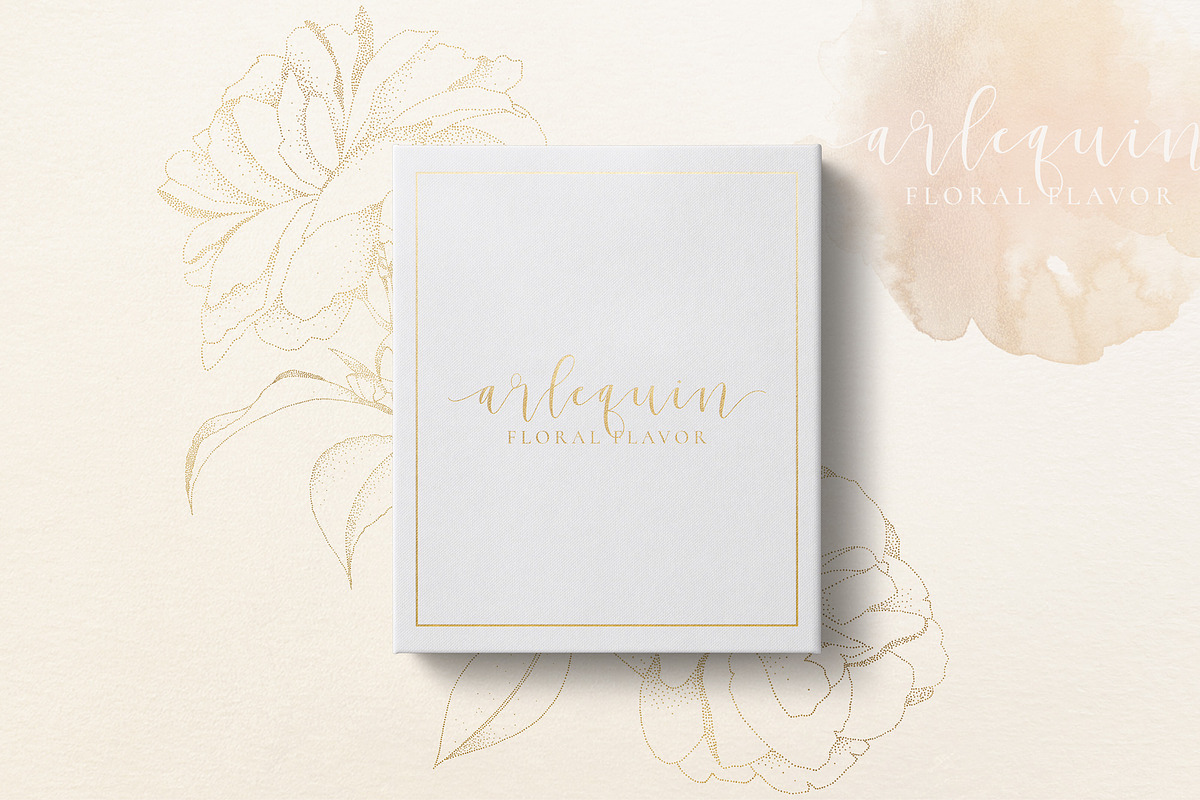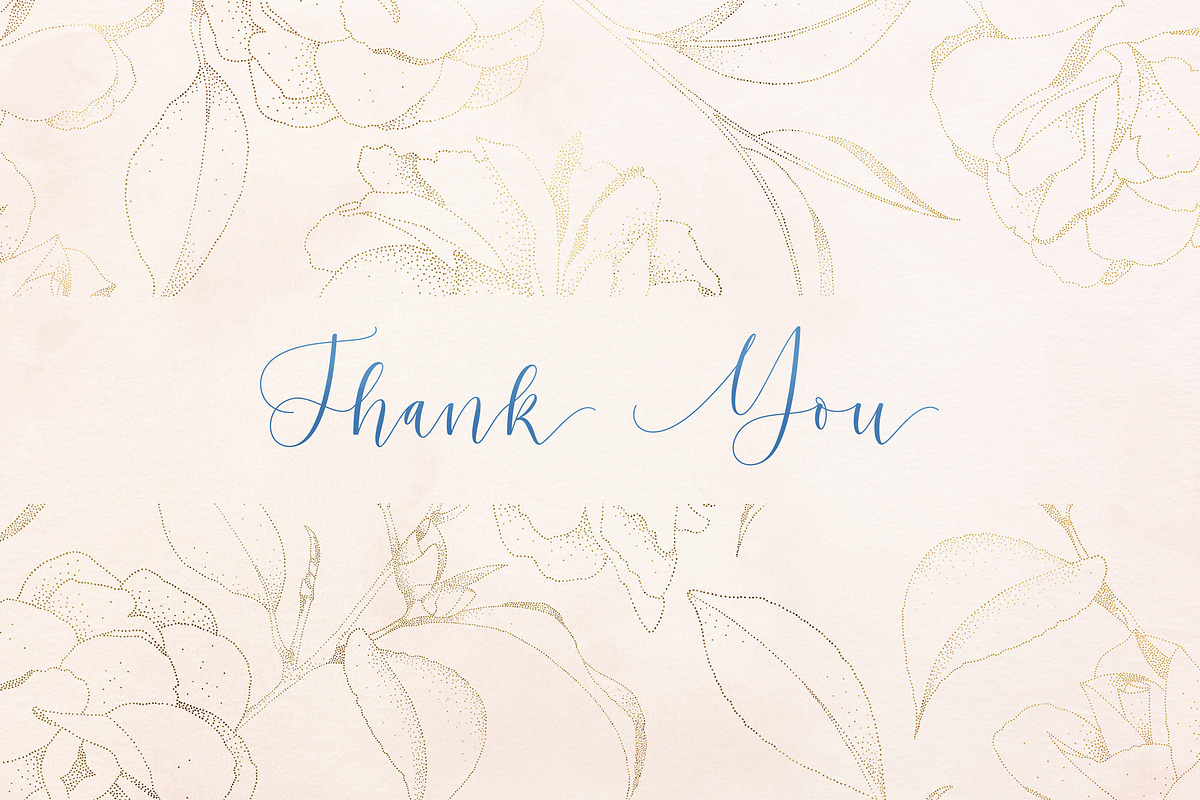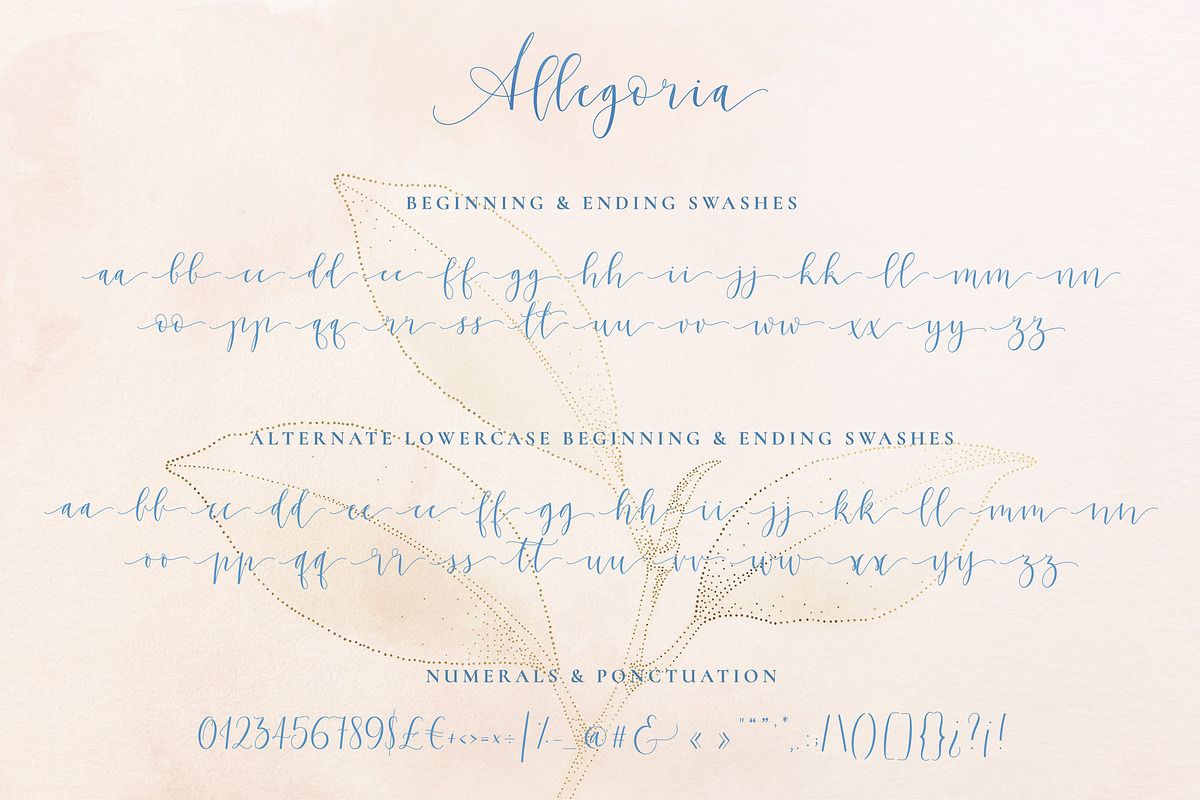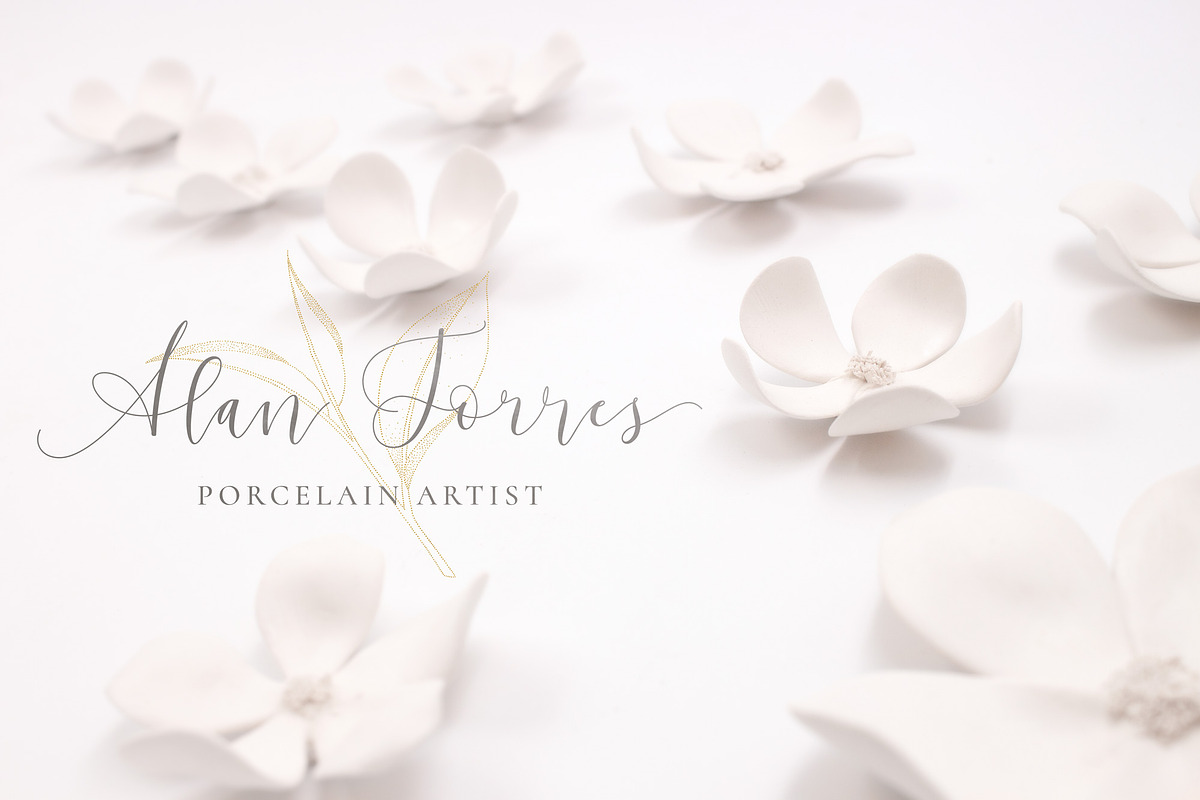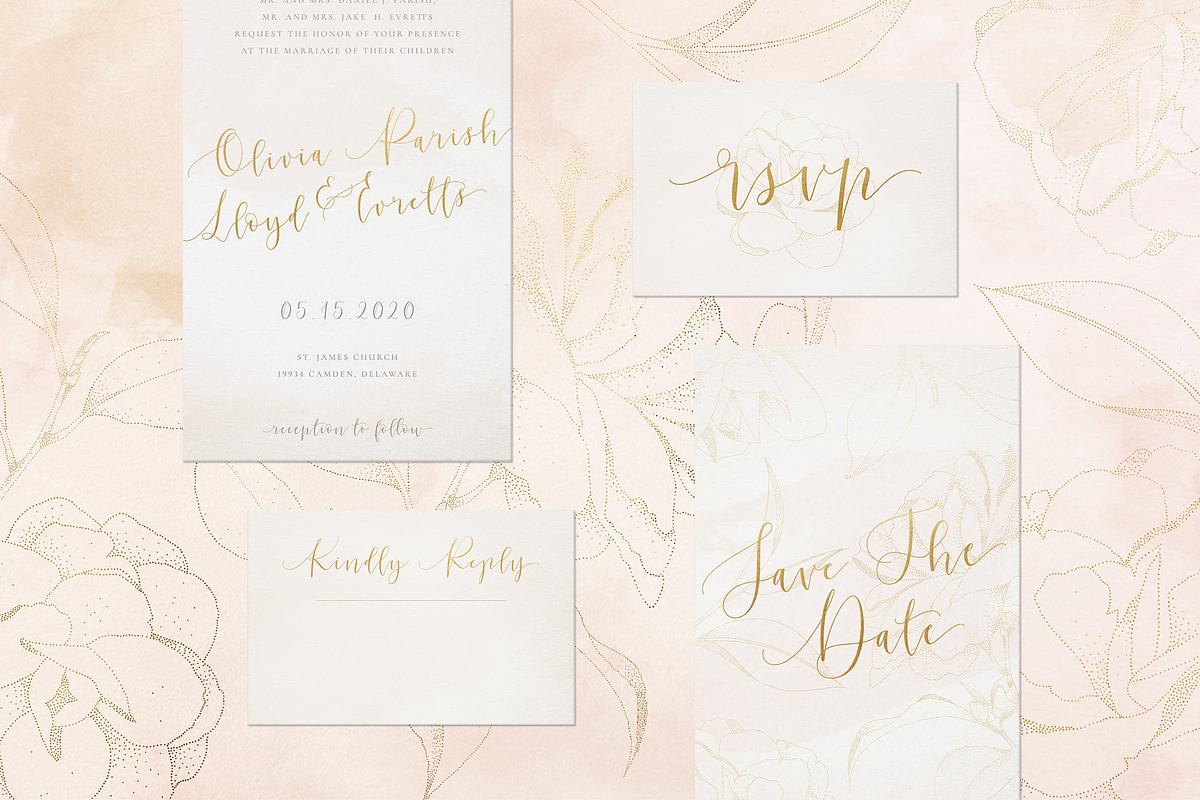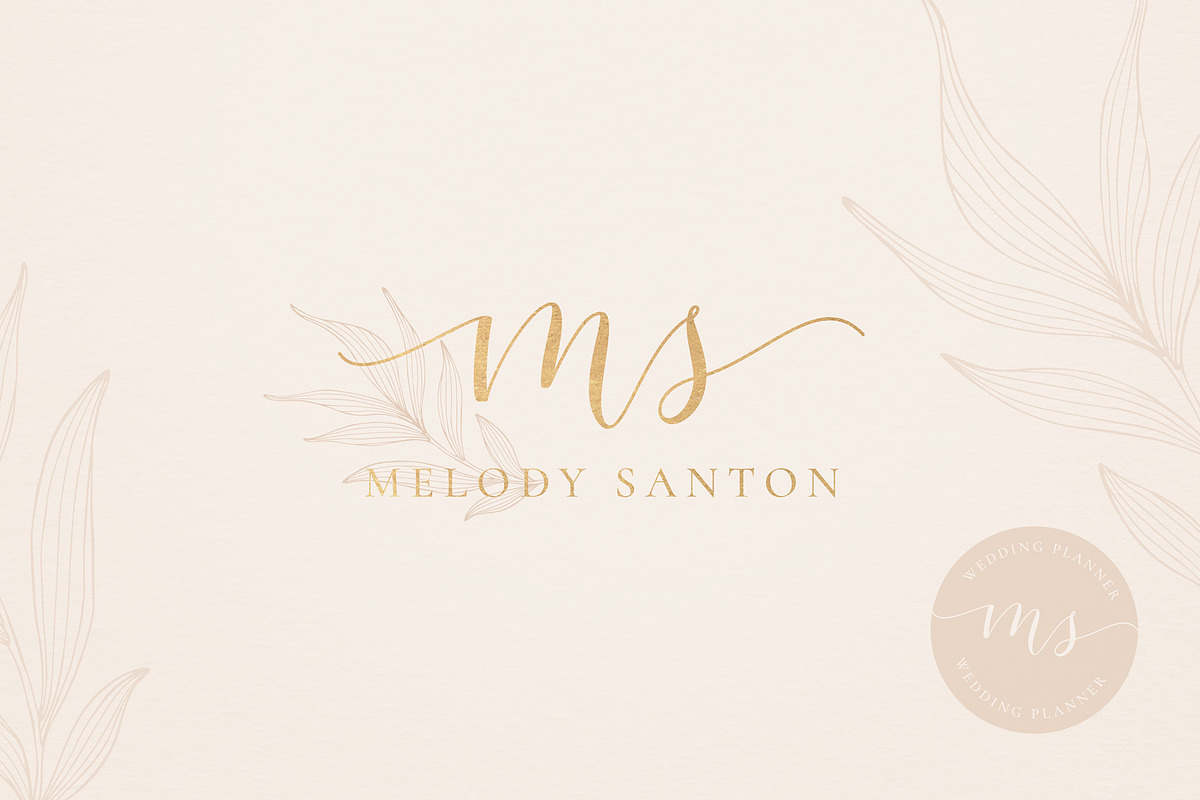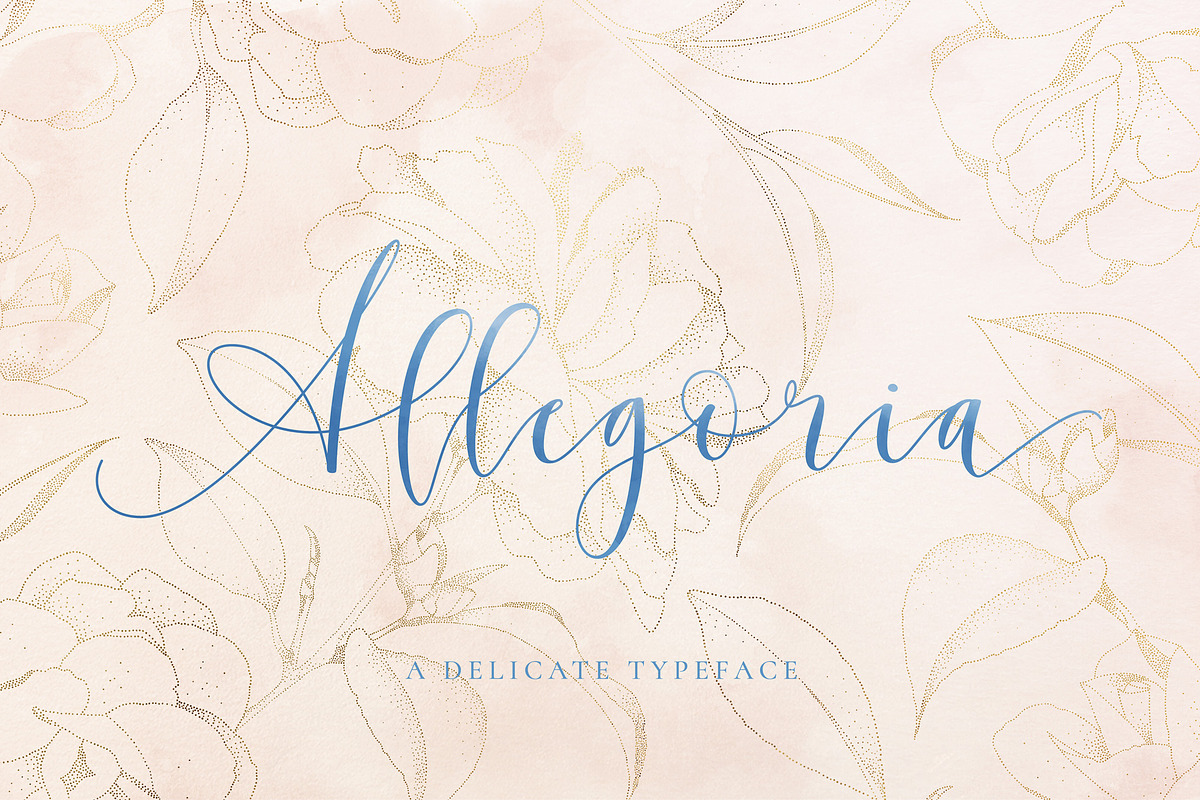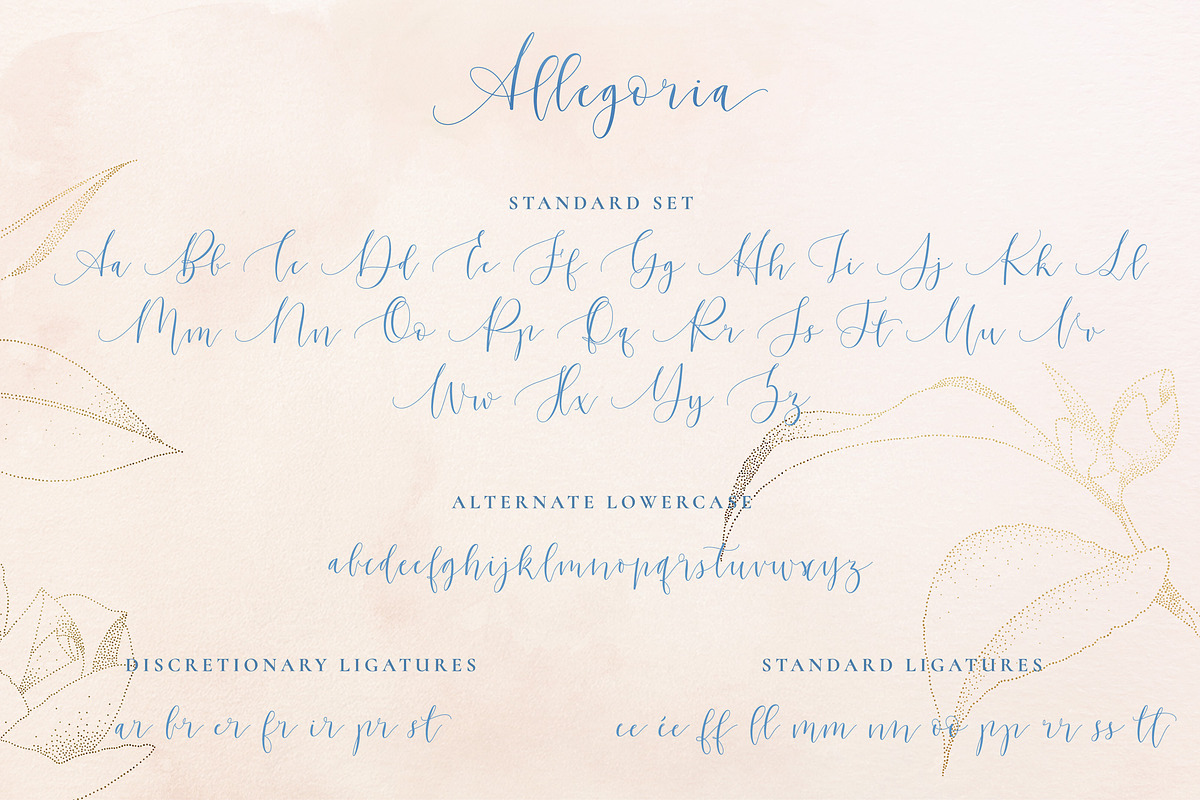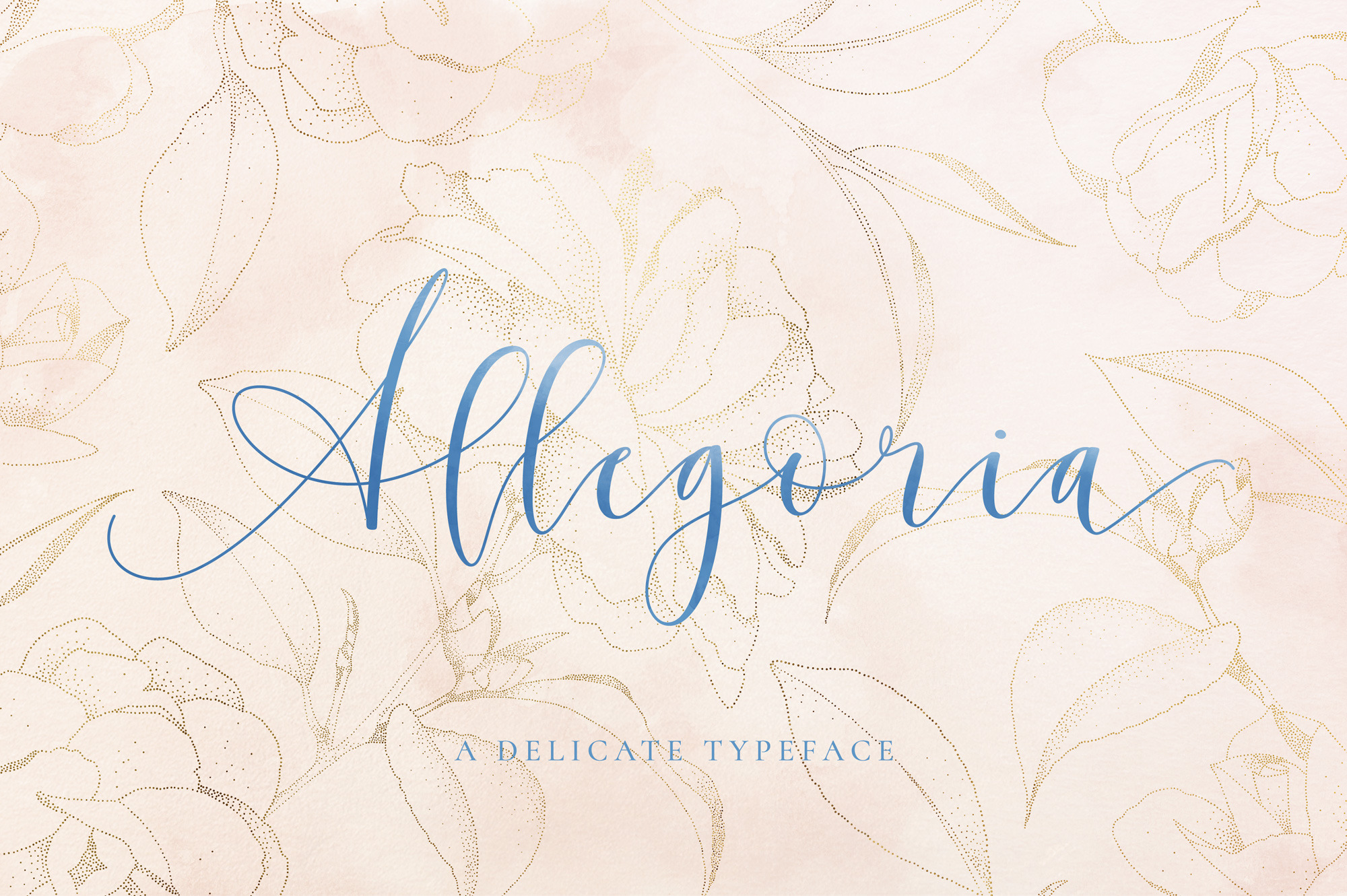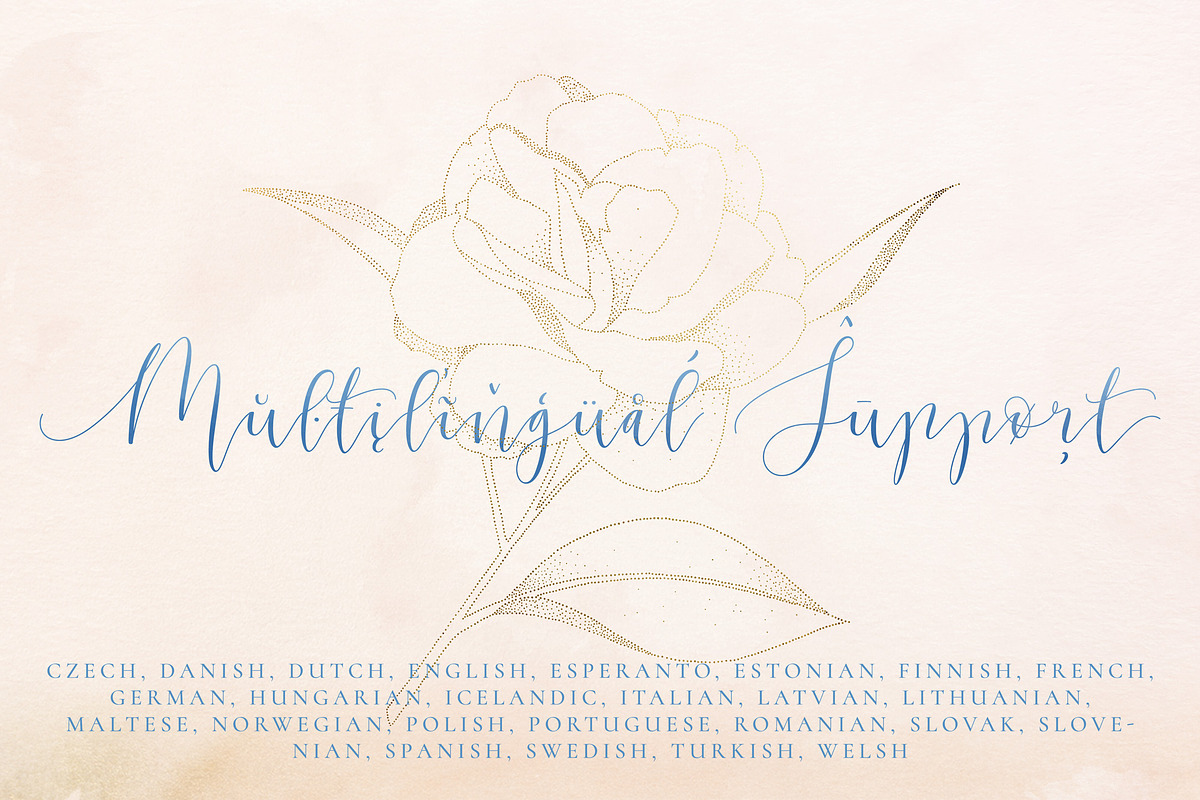
Allegoria a delicate modern calligraphy typeface with nice curves and swashes.
It would be perfectly appropriated for your wedding invites, logo designs, blog headers and branding projects.
A full standard set with uppercase and lowercase, ligatures, numerals, ponctuation, symbols and multilingual characters.
An alternate set of lowercase characters.
Short begining and ending swashes for both lowercase set.
The Swashes:
The swashes are included as « alternate characters », so you can choose from:
Same goes for all the lowercase letters. Except the letter e wich has 3 variants cause i wasn't able to decide between the 3 :)